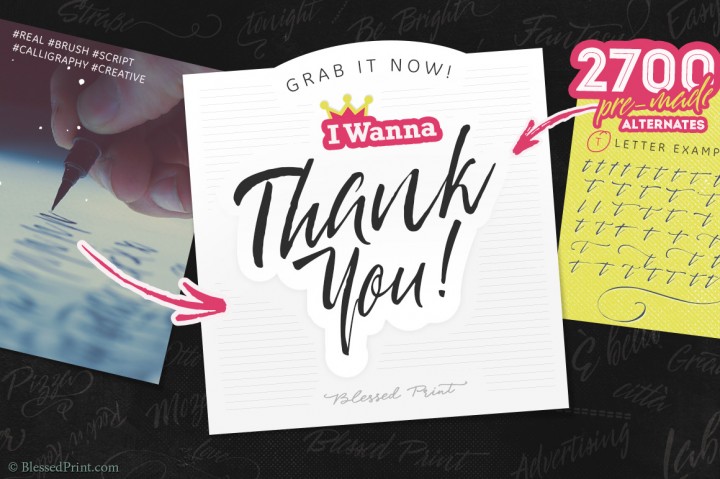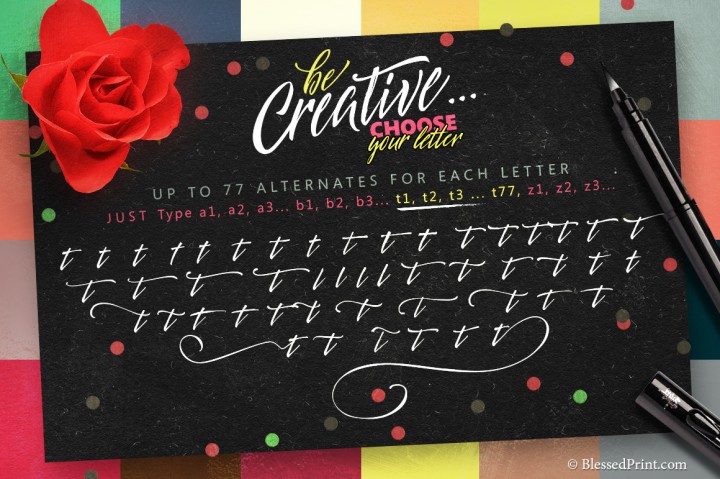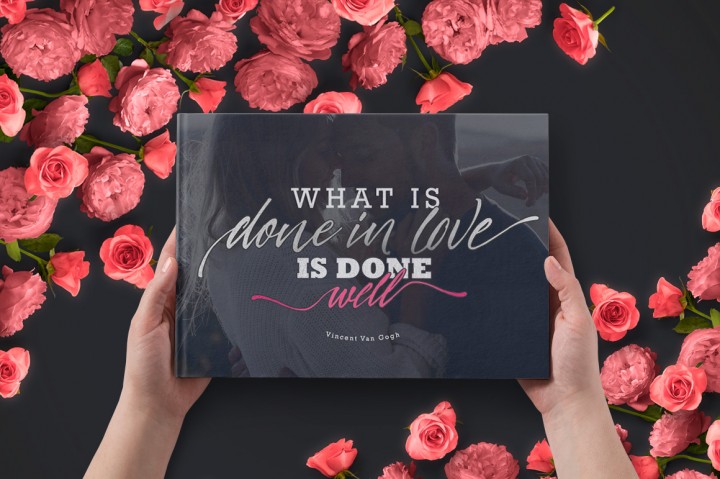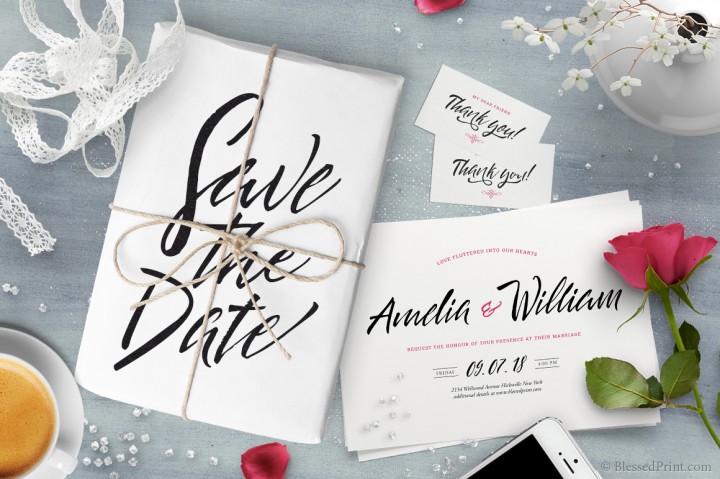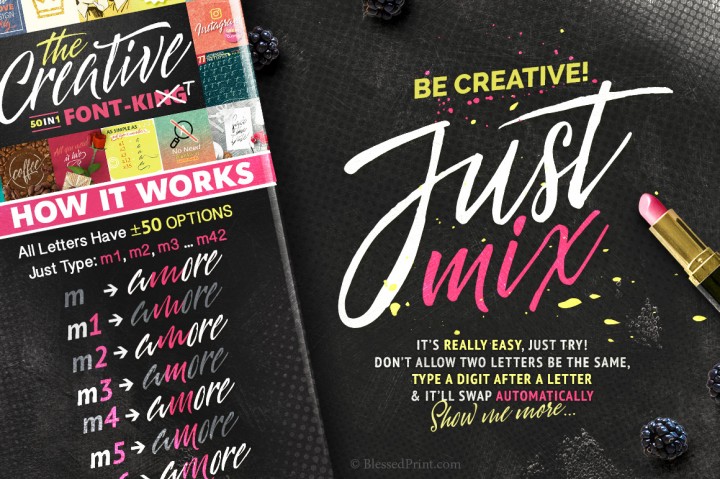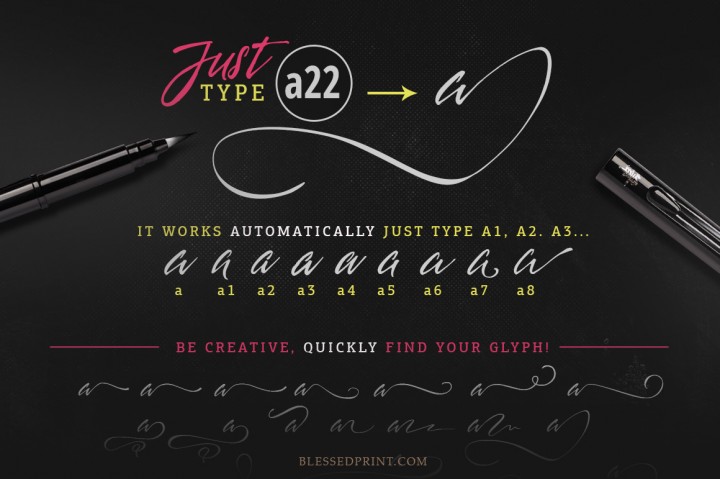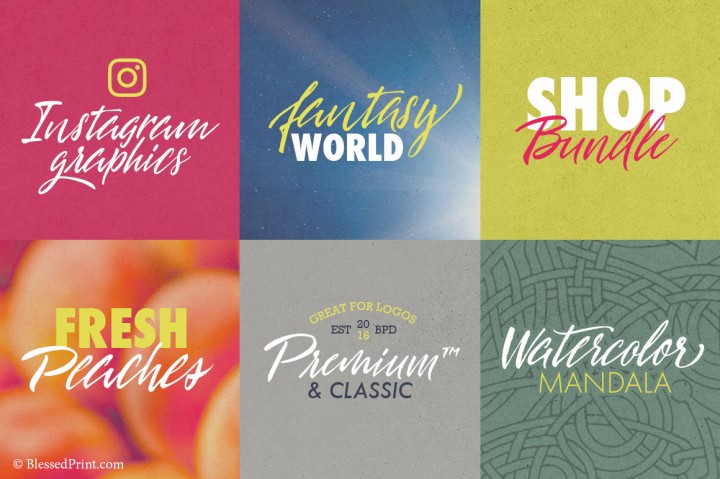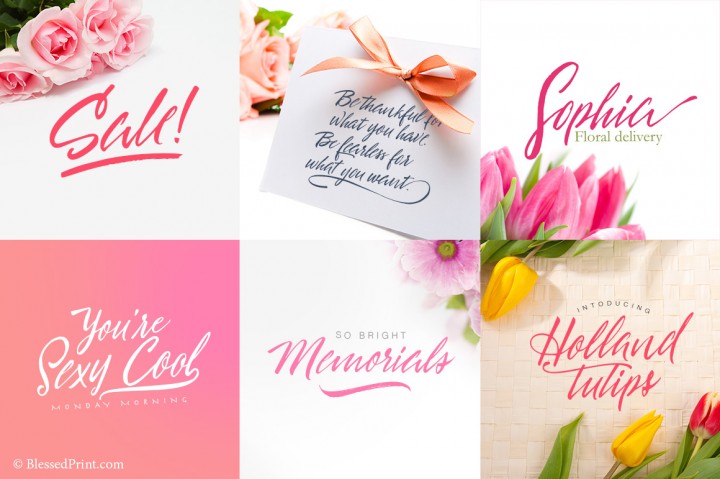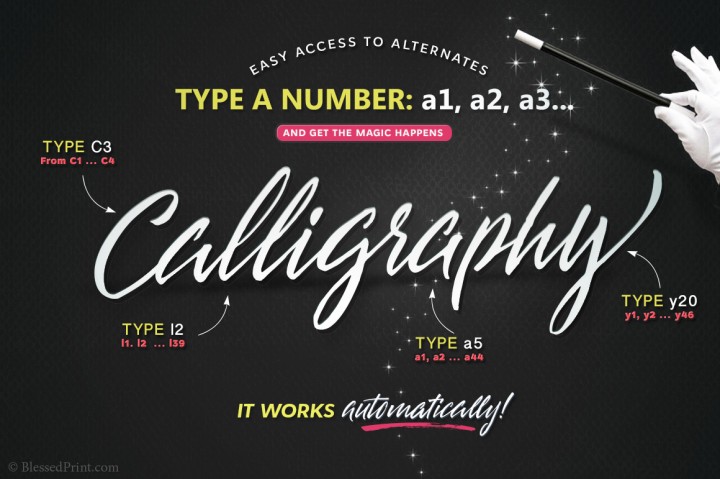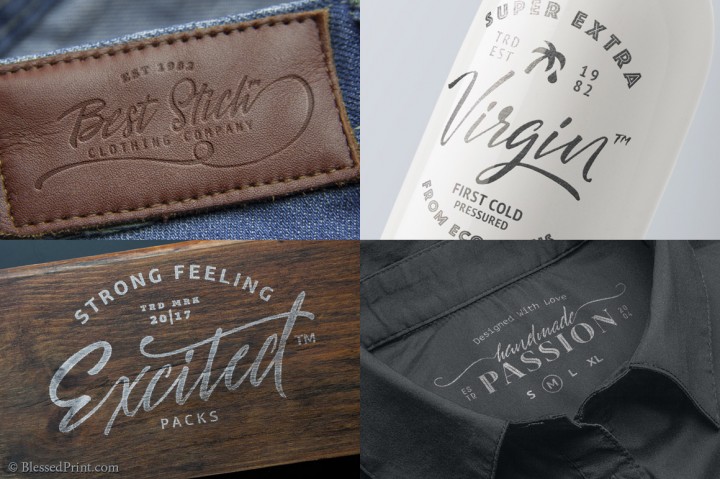
The Creative Font
About The Creative Font
The Creative is a unique font that allows you to quickly change between alternates without opening the glyphs panel.
This stunning font is packed with 2700 unique glyphs and is comes packed with PUA encoded alternates, ligatures and more.